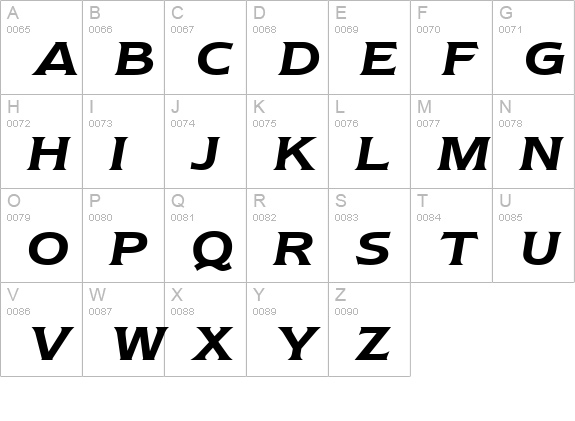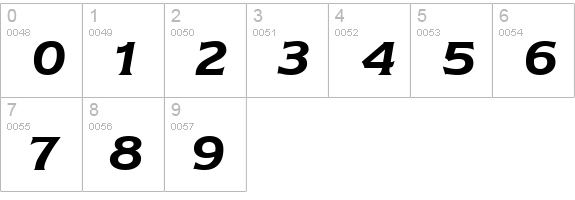
Newtext Italic Font Details
Newtext Italic is a distinctive, italic variant in the Newtext typeface family \xE2\x80\x94 well suited to design and typography projects.
Introducing Newtext Italic font - a sleek and modern typeface designed to elevate your projects with a touch of sophistication and elegance. The italicized style adds a dynamic flair to any text, making it perfect for headings, branding, and creative designs. What sets Newtext Italic font apart is not just its stylish appearance, but also its versatility. Whether you're working on a website, a poster, a logo, or any other design project, this font will effortlessly complement your vision and bring your ideas to life. The best part? Newtext Italic font is completely free for personal and commercial use. You can easily download it at FontsMarket.com and start using it in your projects right away. Don't miss out on this opportunity to enhance your designs with a touch of class and sophistication - download Newtext Italic font today!